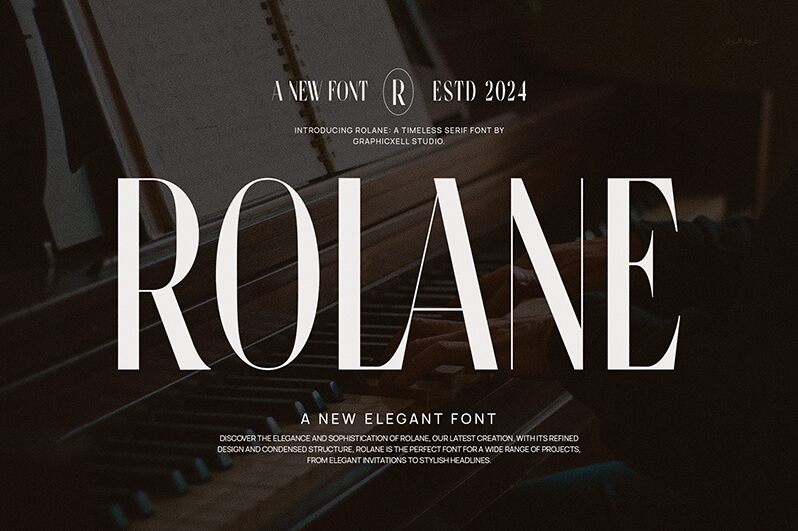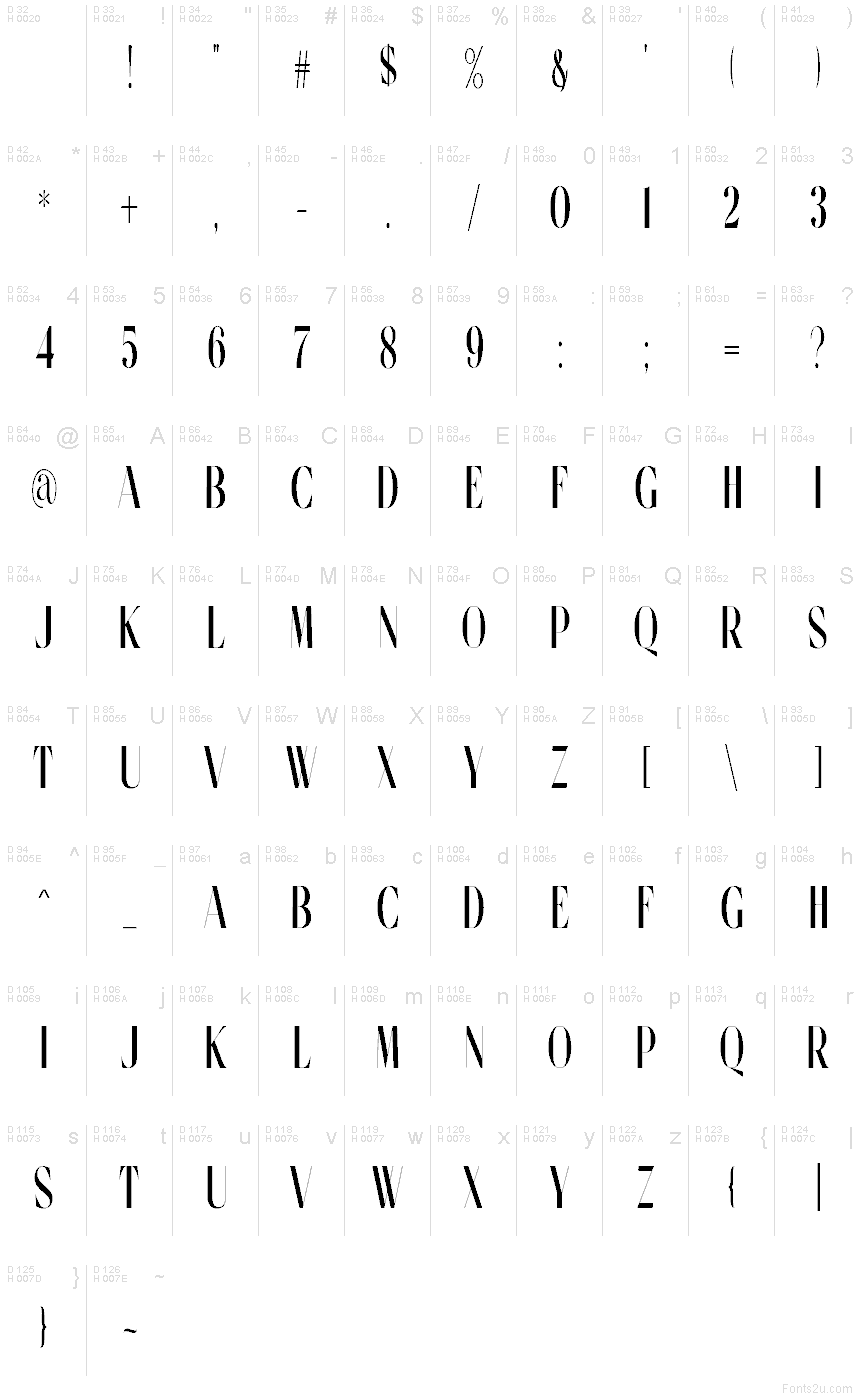
Rolane
Rolane font by Graphicxell is a free serif typeface with a striking, fashion-forward stance. Tall verticals, razor-thin hairlines, and crisp, blade-like serifs create a dramatic rhythm that reads lux without shouting. The letters feel carved—inky slabs next to gossamer strokes—giving headlines a couture snap and unmistakable presence.
Using Rolane, you’ll elevate fashion branding, beauty packaging, magazine mastheads, event posters, album covers, and perfume labels. Tight, generous sizes let its elegant contrast sing, while wider tracking adds air for upscale compositions. This free font shines when paired with a calm grotesque sans for body copy—try a neutral companion and let Rolane handle the spotlight.